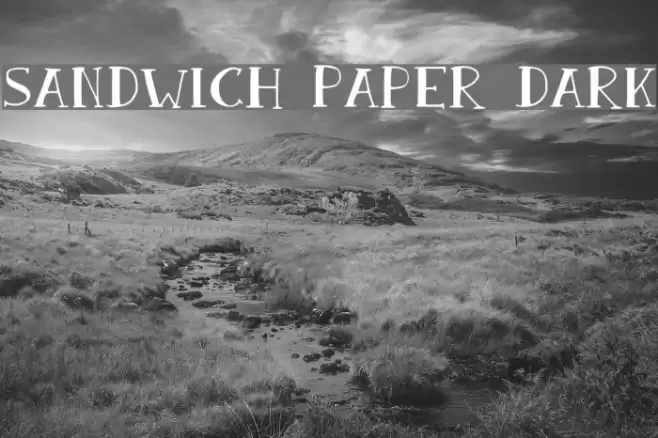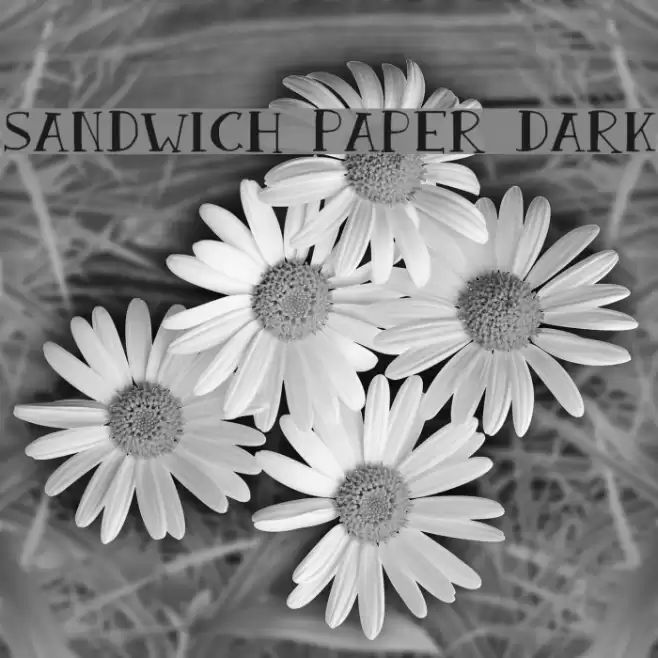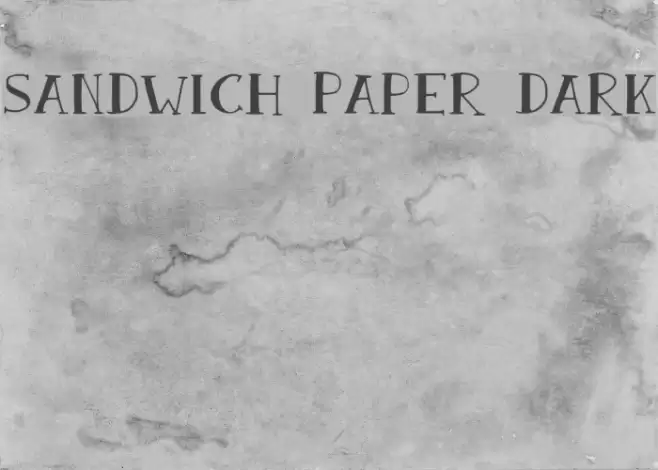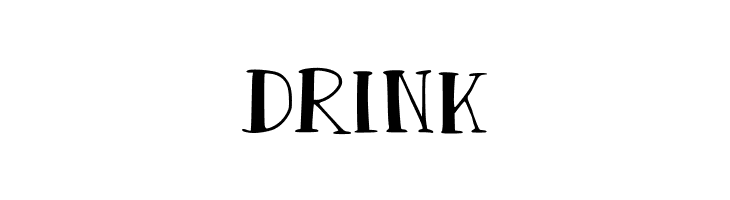
Sandwich Paper Dark Font
Sandwich Paper Dark Description
This font features a unique blend of classic and modern elements, characterized by its sharp, angular serifs and slightly condensed letterforms. The uppercase letters exhibit a bold presence with distinct, flared serifs that add a touch of elegance and sophistication. The lowercase letters maintain a consistent style, with a slight slant that suggests movement and dynamism. The numerals are well-proportioned, matching the overall aesthetic of the font. Special characters are designed with the same attention to detail, ensuring a cohesive look across all glyphs. This font's high contrast between thick and thin strokes enhances its readability while maintaining a stylish appearance.
A modern serif font with sharp, angular serifs and high contrast strokes from Uncategorized fonts.
- Font: Sandwich Paper Dark
- Weight: Black
- Proposed Projects: Ideal for branding, editorial design, and packaging projects that require a sophisticated and modern touch.